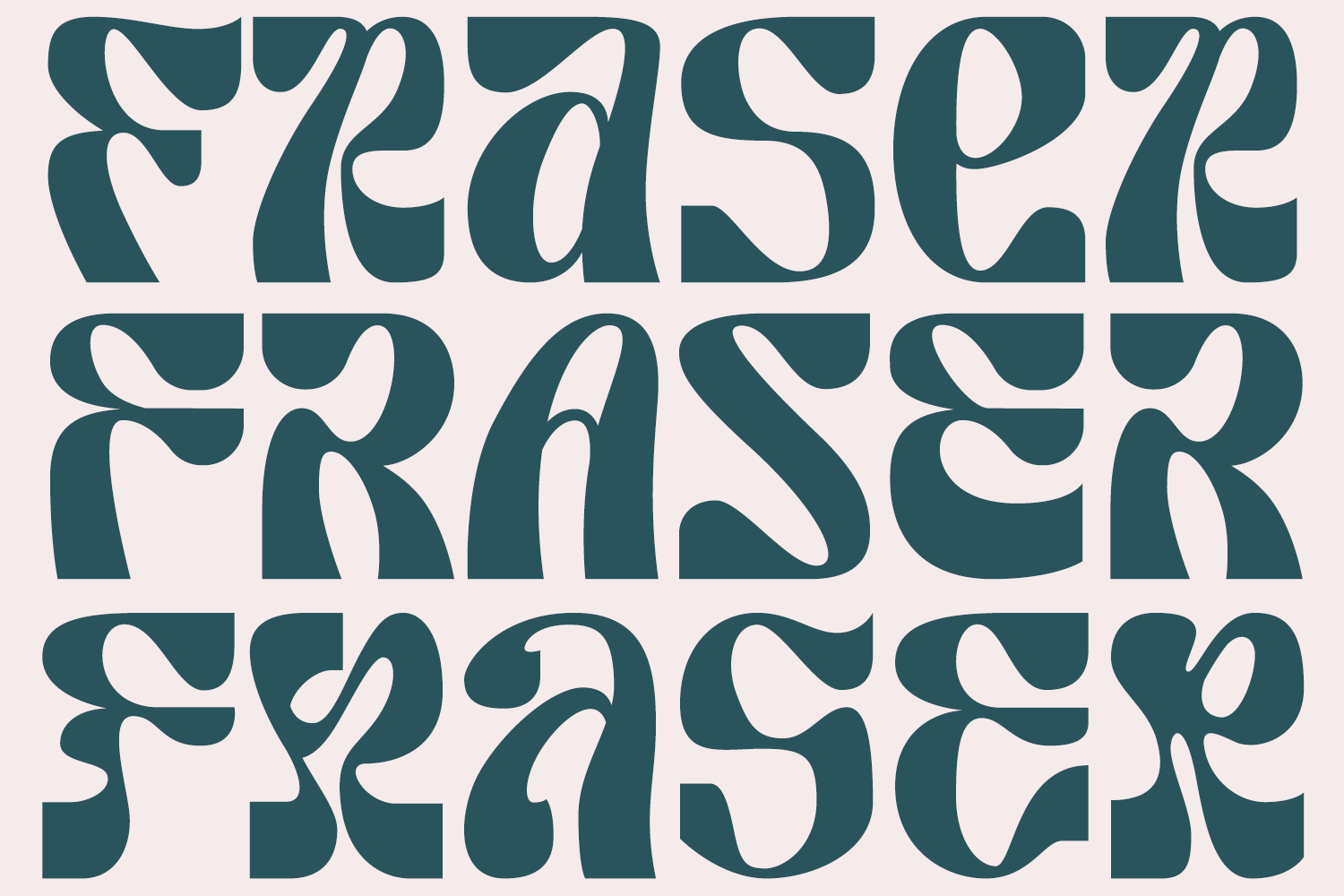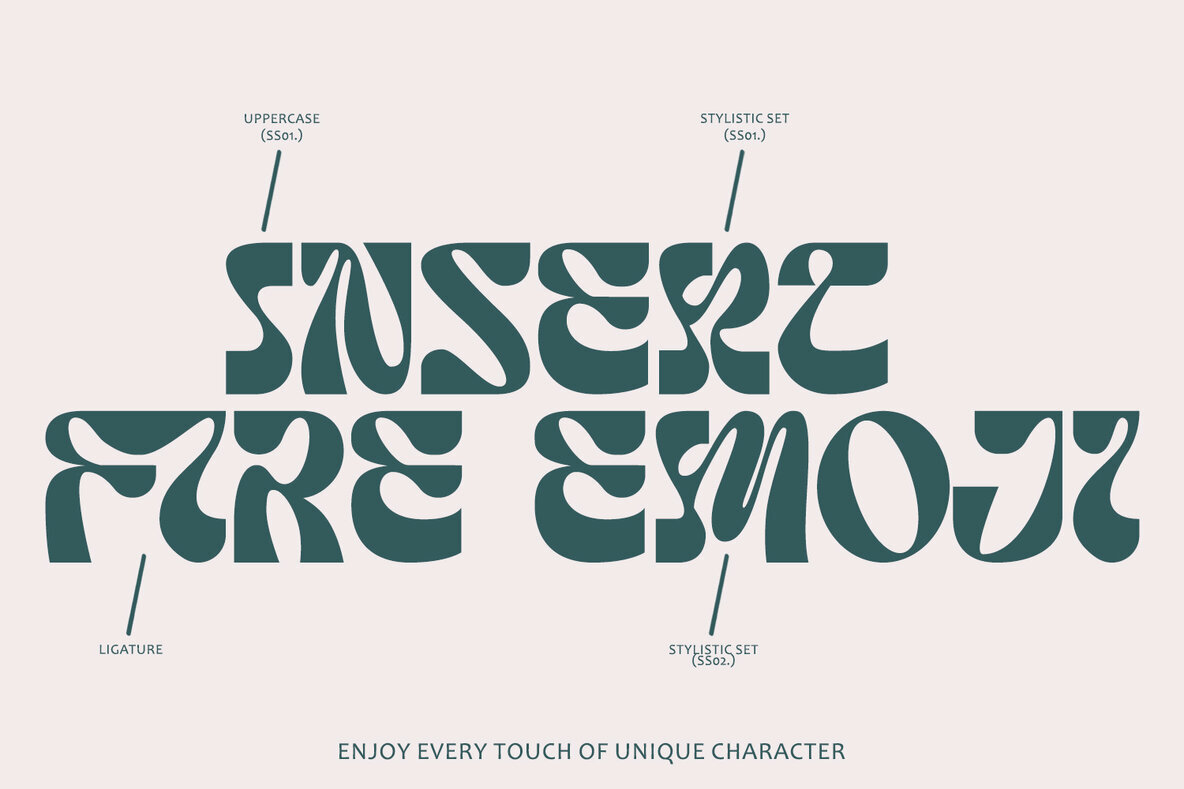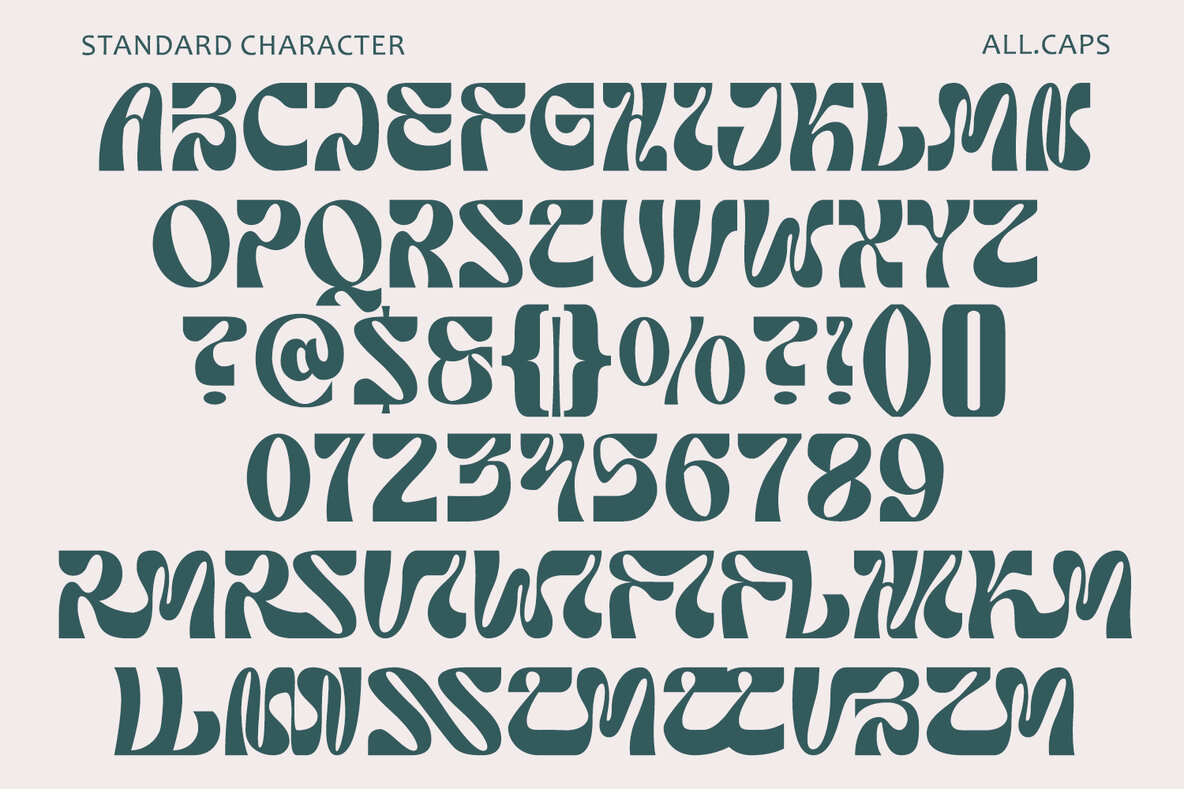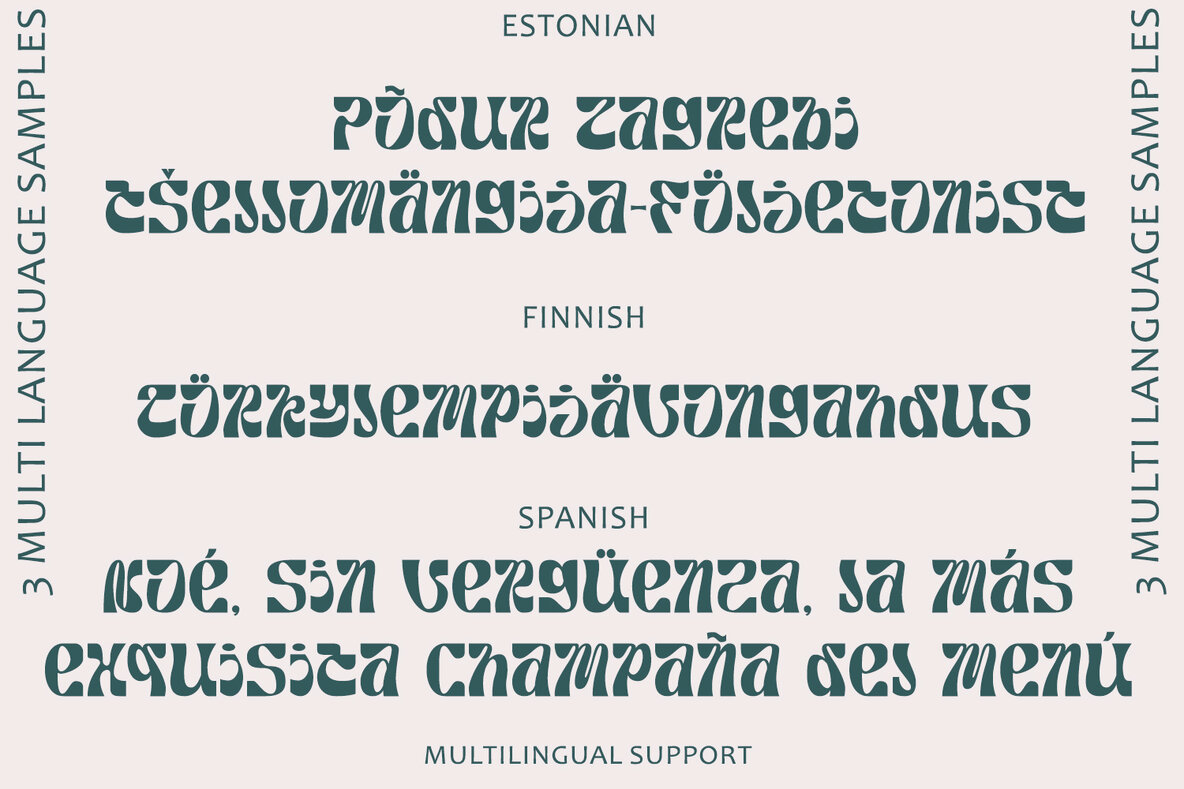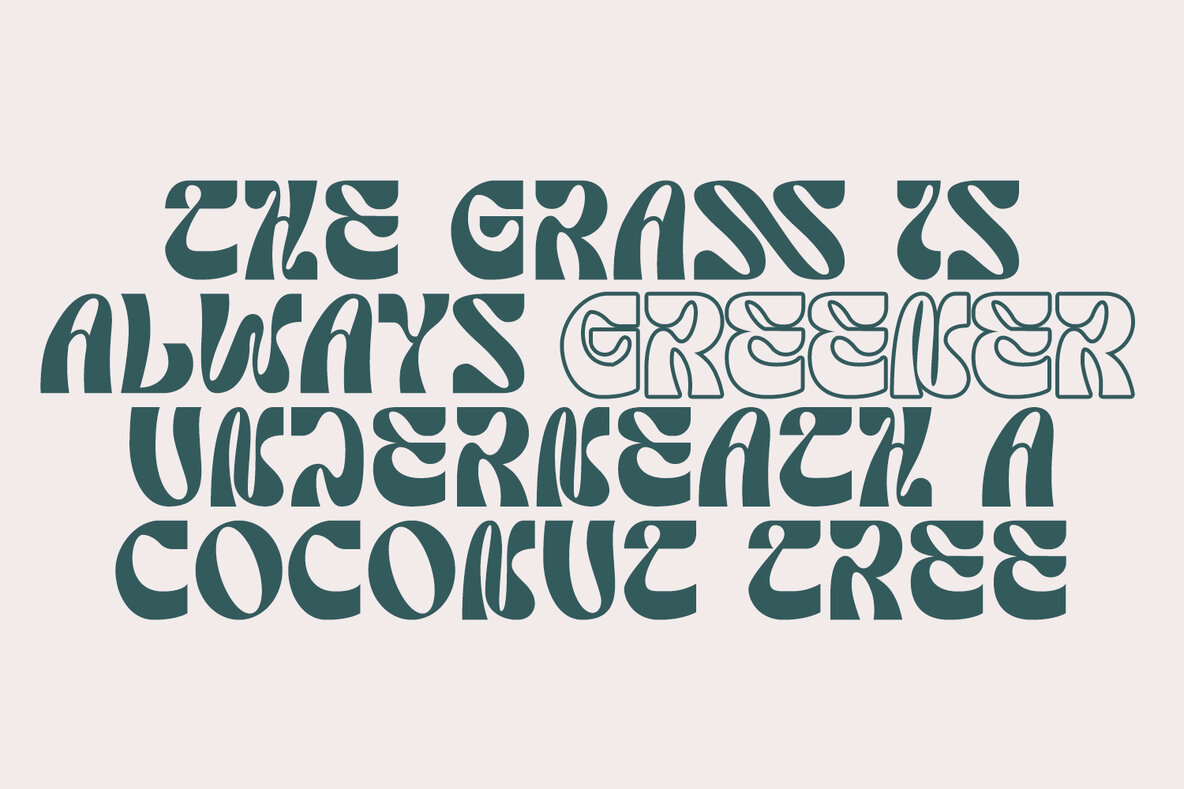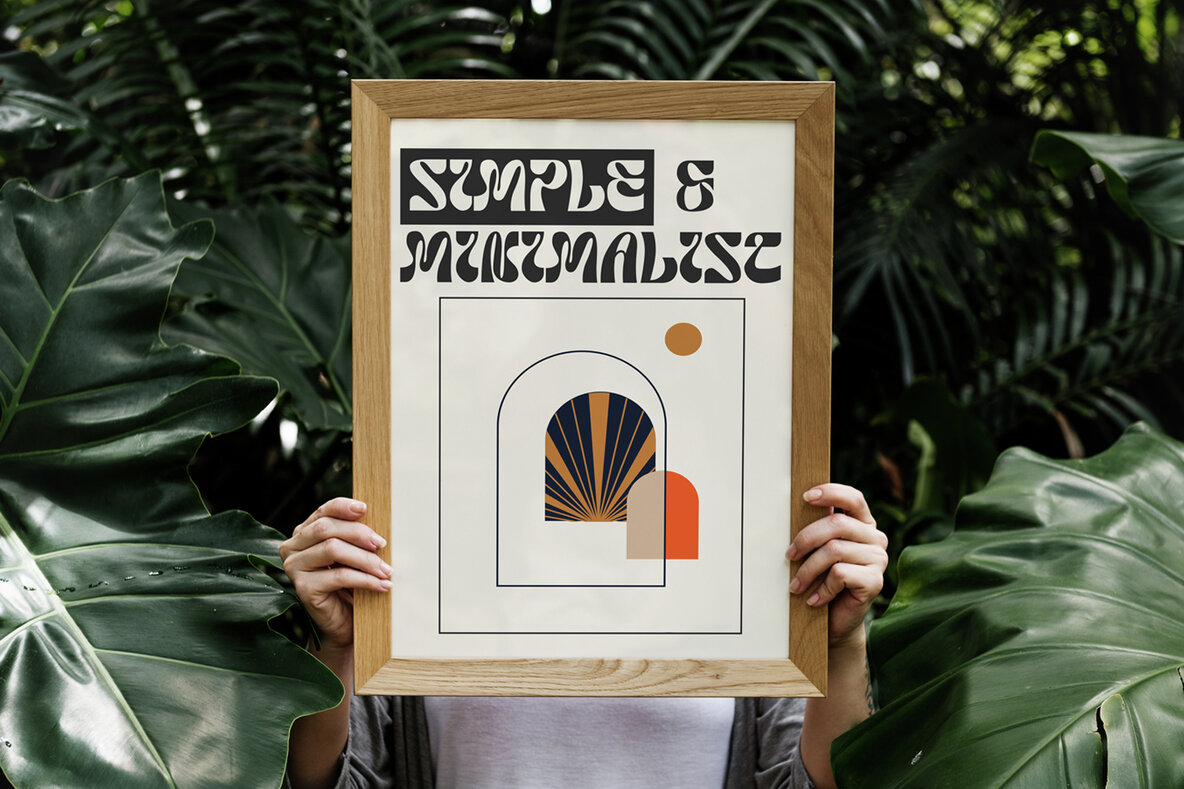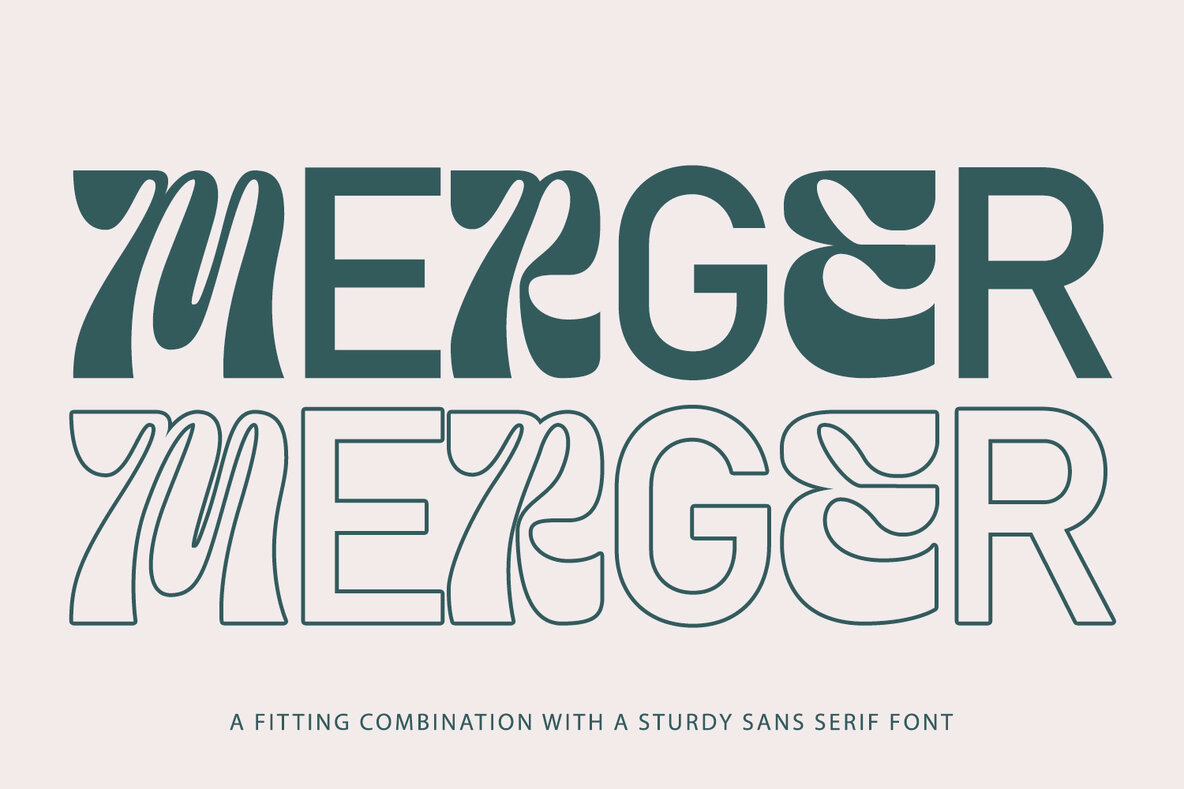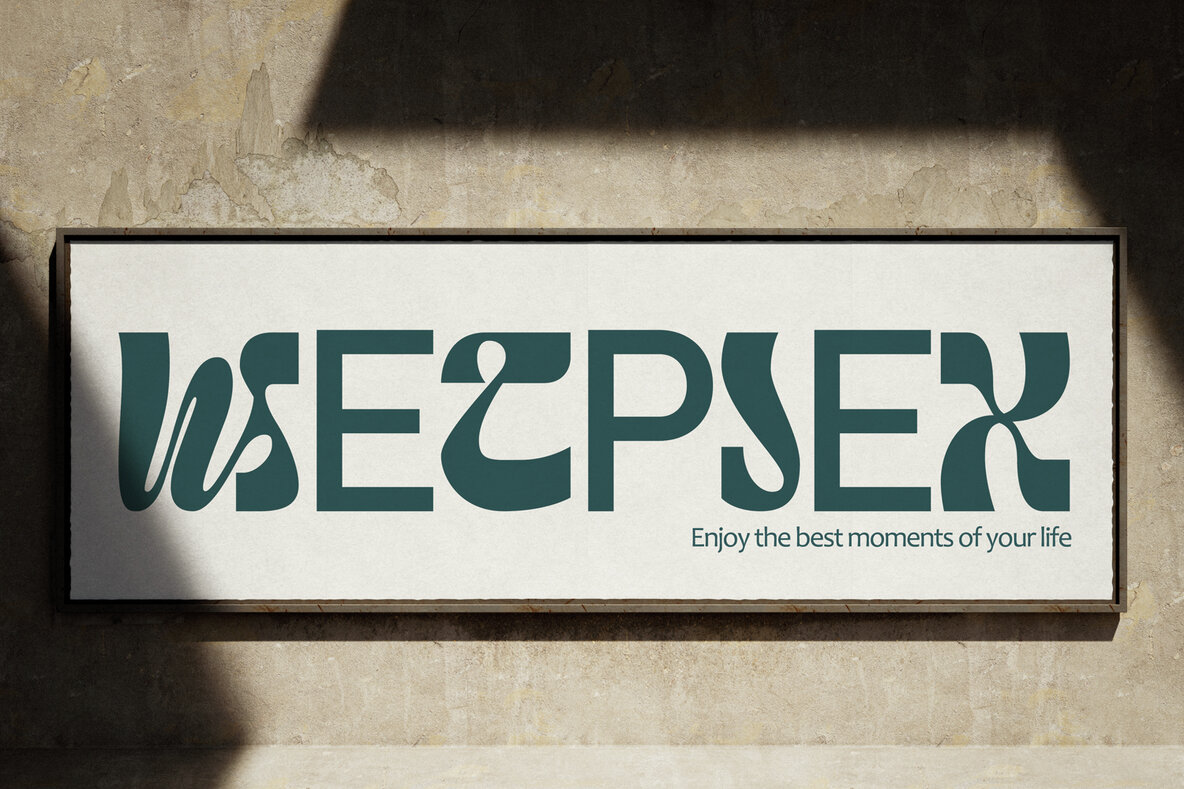
Fraser Font
Fraser Regular
Fraser – Tropical Font often incorporate organic and flowing design elements, mimicking the curves and shapes found in nature, such as palm fronds, waves, or exotic flowers. These elements can add a sense of fluidity and movement to the typography. if you are looking for a font that embodies a tropical or exotic aesthetic, you may be interested in fonts that are inspired by or commonly associated with tropical themes. Such fonts often feature characteristics that evoke feelings of warmth, relaxation, and the natural beauty of tropical environments. Organic and Flowing: Tropical fonts often incorporate organic and flowing design elements, mimicking the curves and shapes found in nature, such as palm fronds, waves, or exotic flowers. These elements can add a sense of fluidity and movement to the typography.